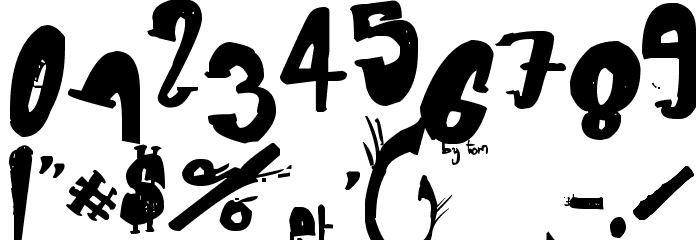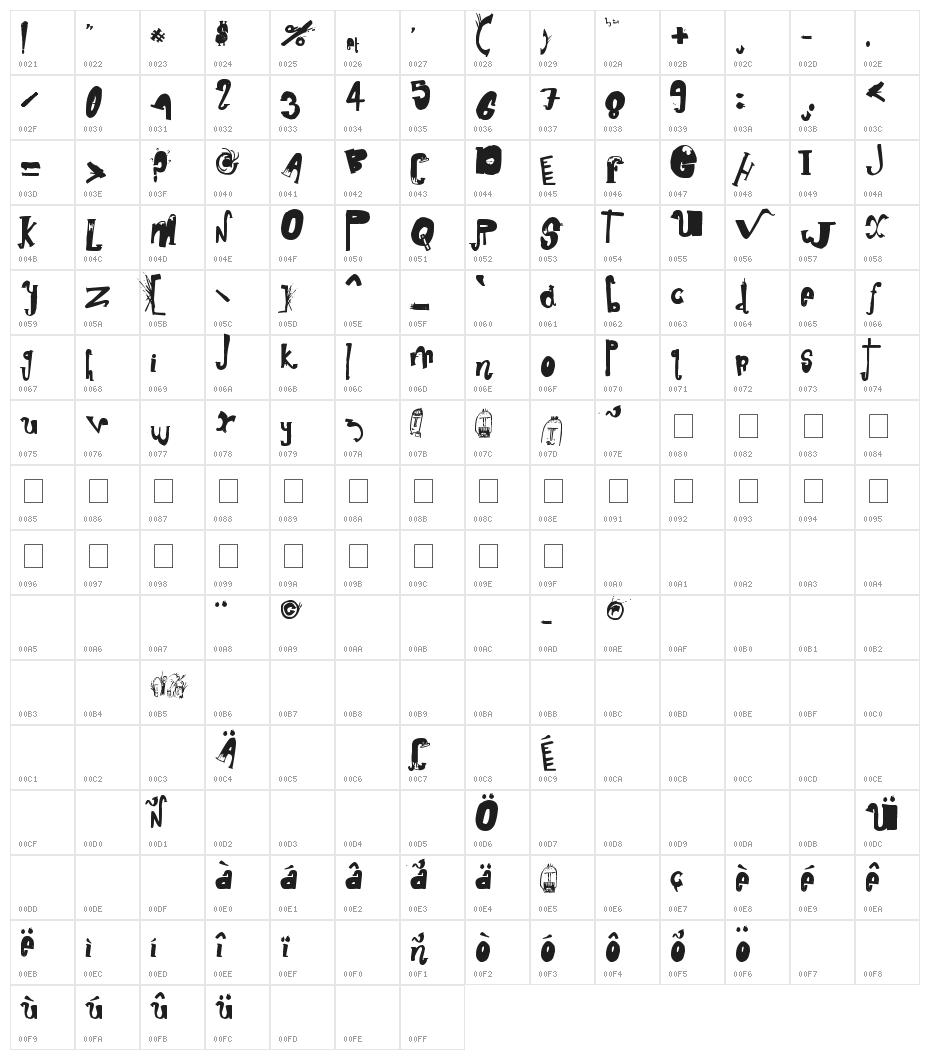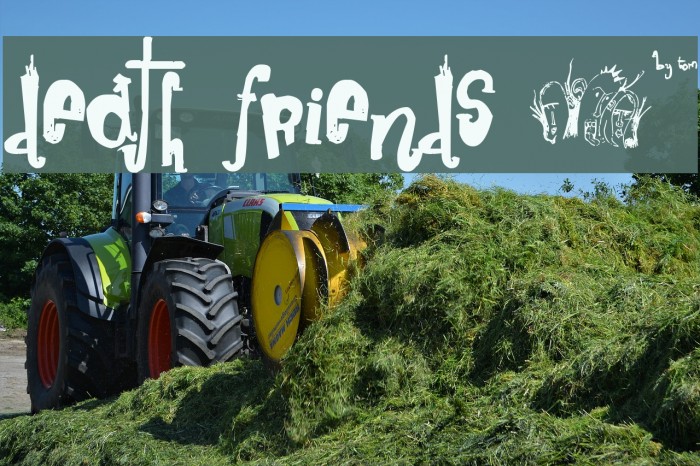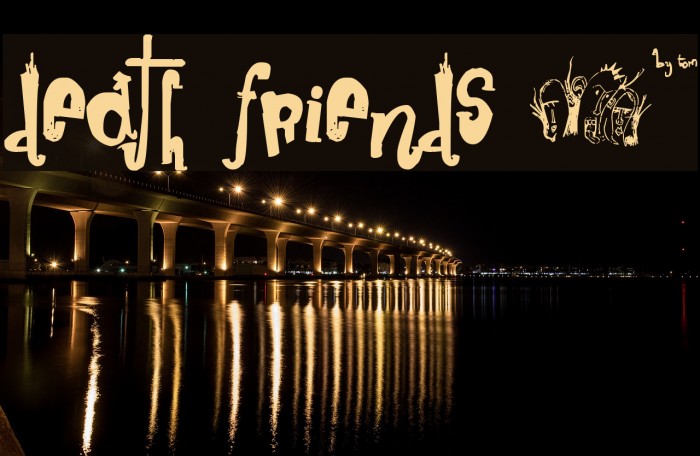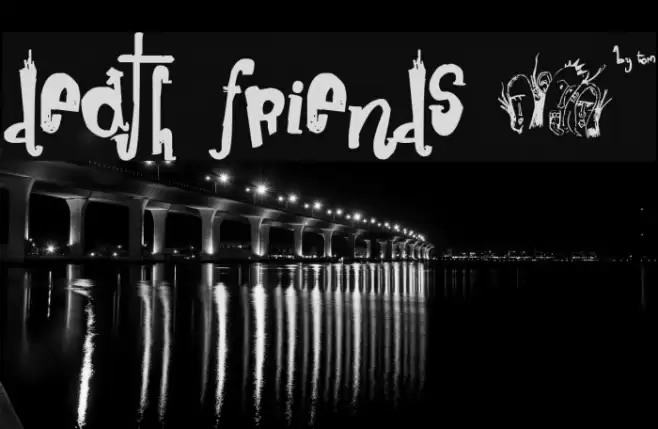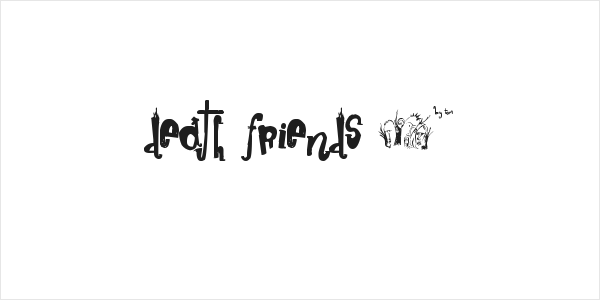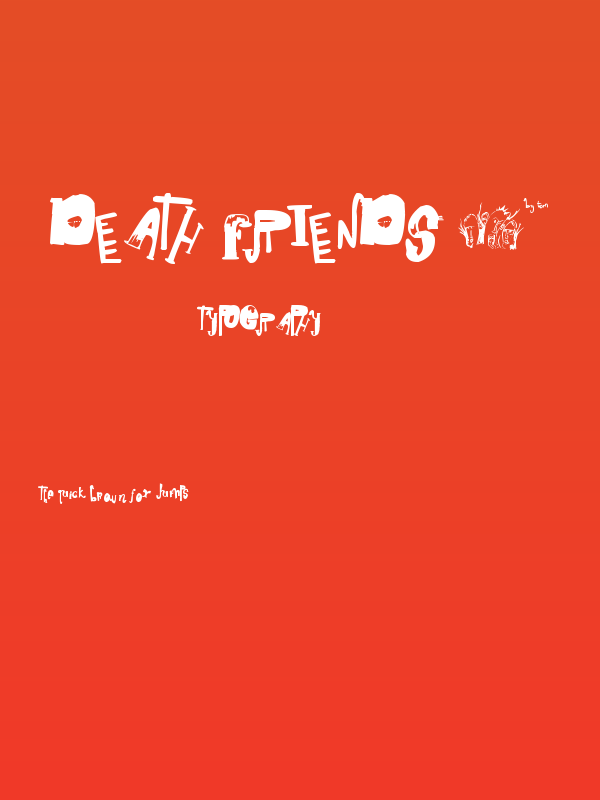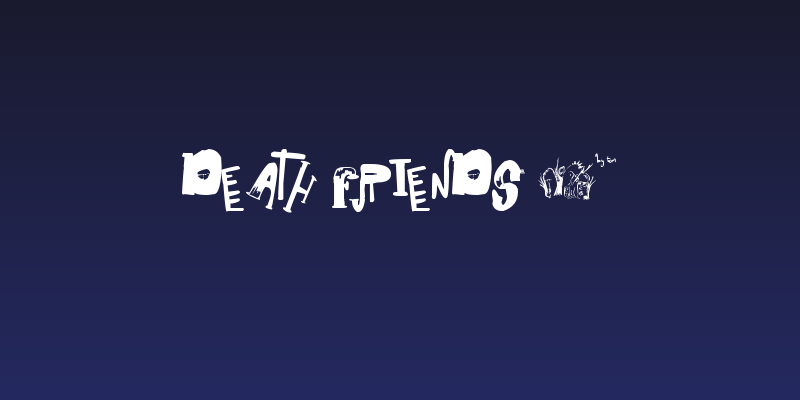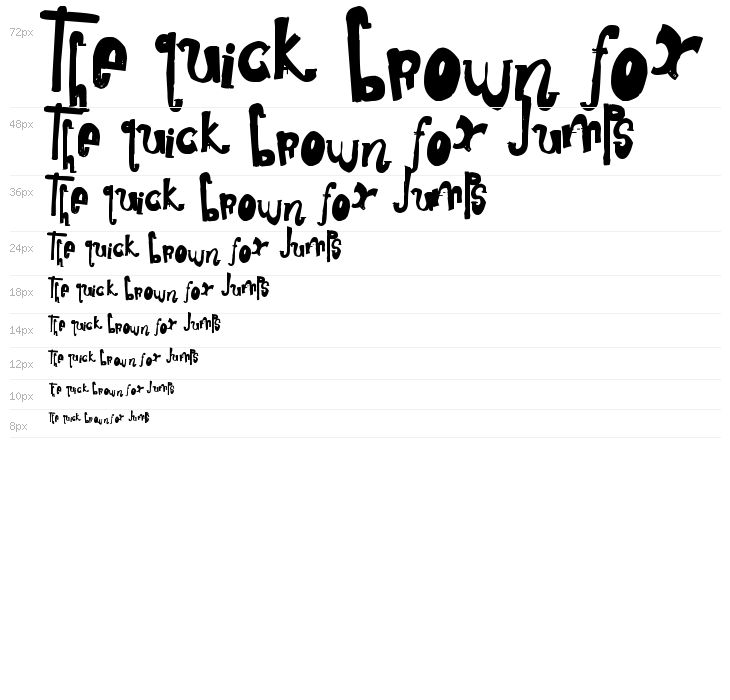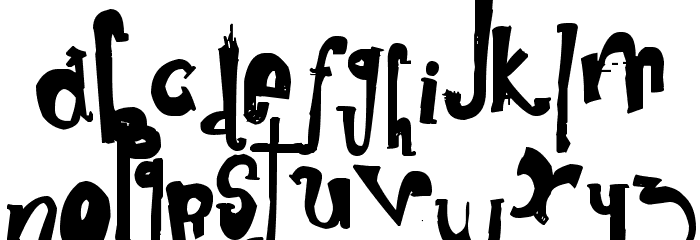
death friends µ* Font
death friends µ* Description
This font is a highly creative and artistic display typeface with a playful and chaotic aesthetic. Each character is uniquely designed with irregular shapes and varying thicknesses, giving it a hand-drawn, whimsical feel. The uppercase letters are bold and prominent, while the lowercase letters maintain a quirky and uneven style. Numbers and special characters follow the same artistic theme, adding to the font's overall eclectic and unconventional appearance. The font's distinctive style makes it ideal for projects that require a bold and eye-catching design.
| Proposed Projects | Ideal for creative projects such as posters, album covers, children's books, and artistic branding. |